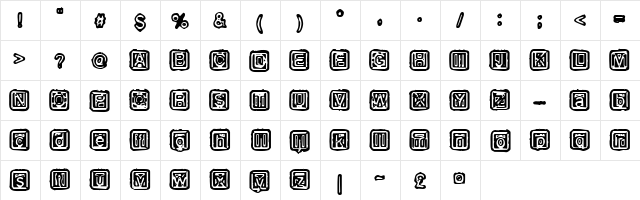
Rubber Hell Regular
Design Context for Rubber Hell Typeface
Rubber Hell is a composed and adaptable typeface that performs quietly and consistently across a wide range of design contexts.